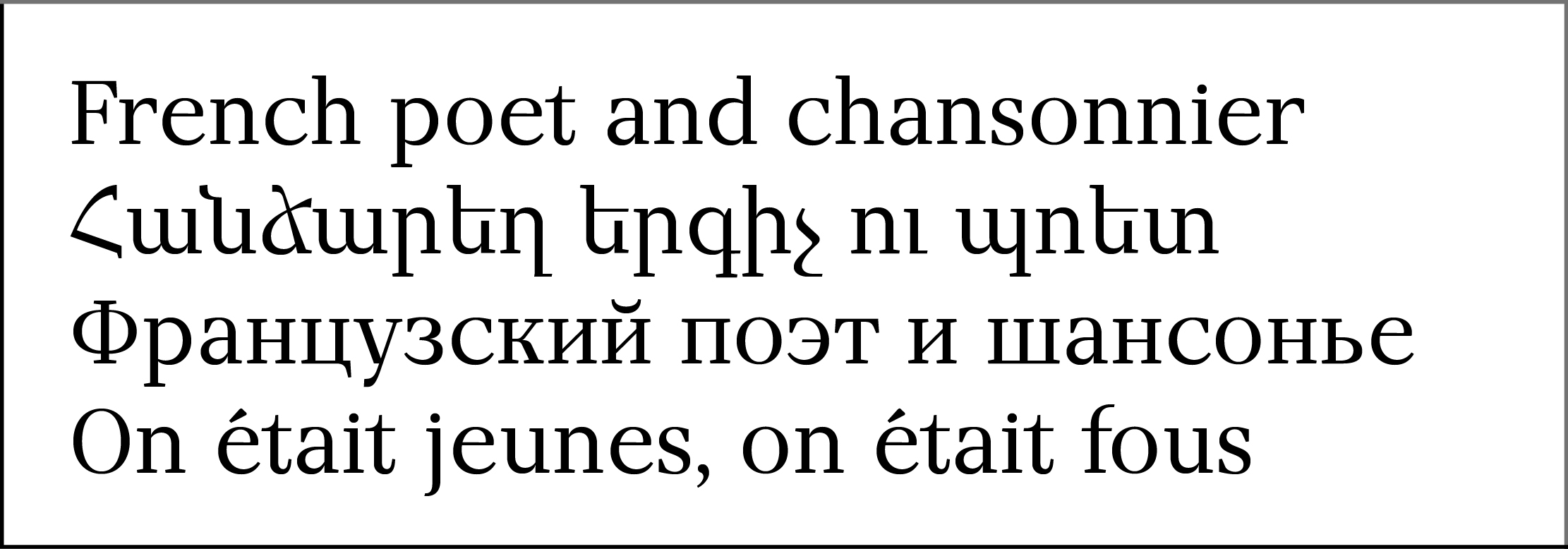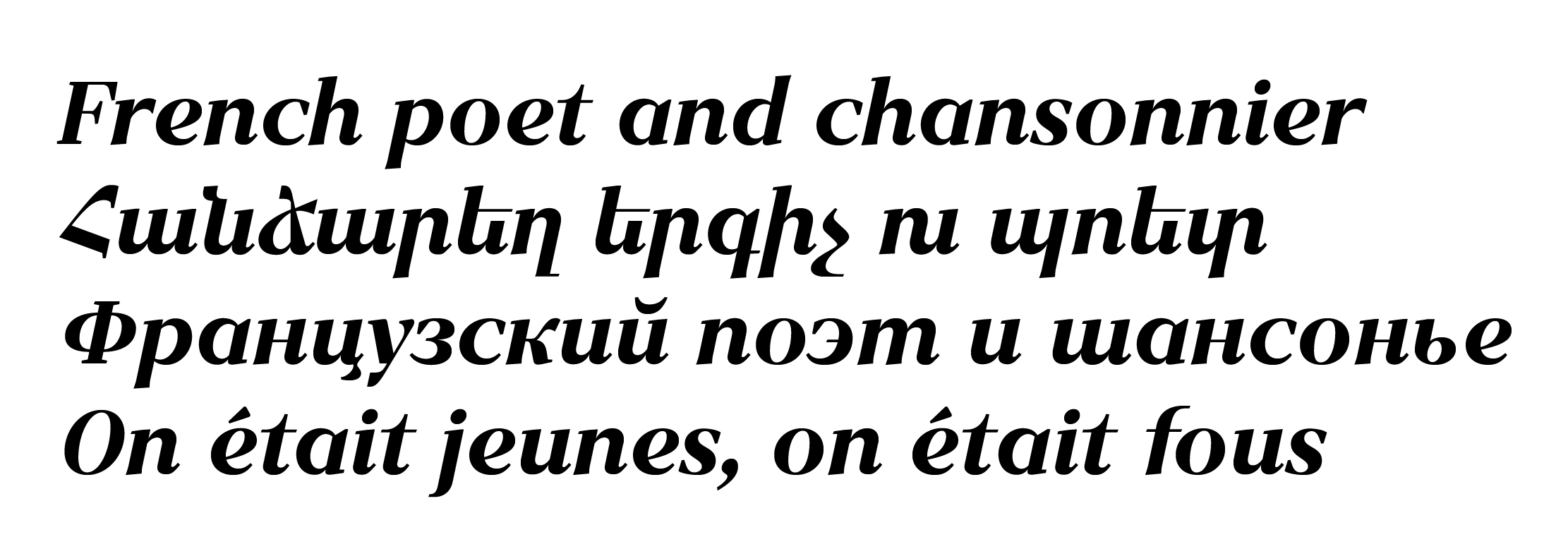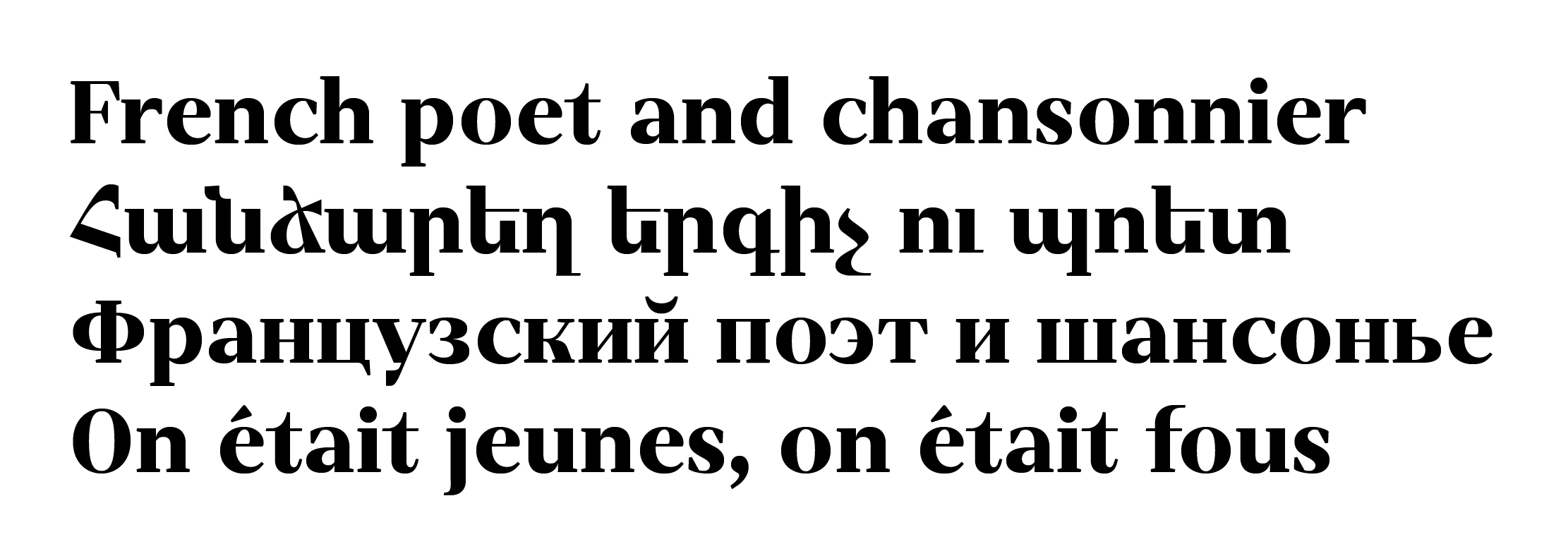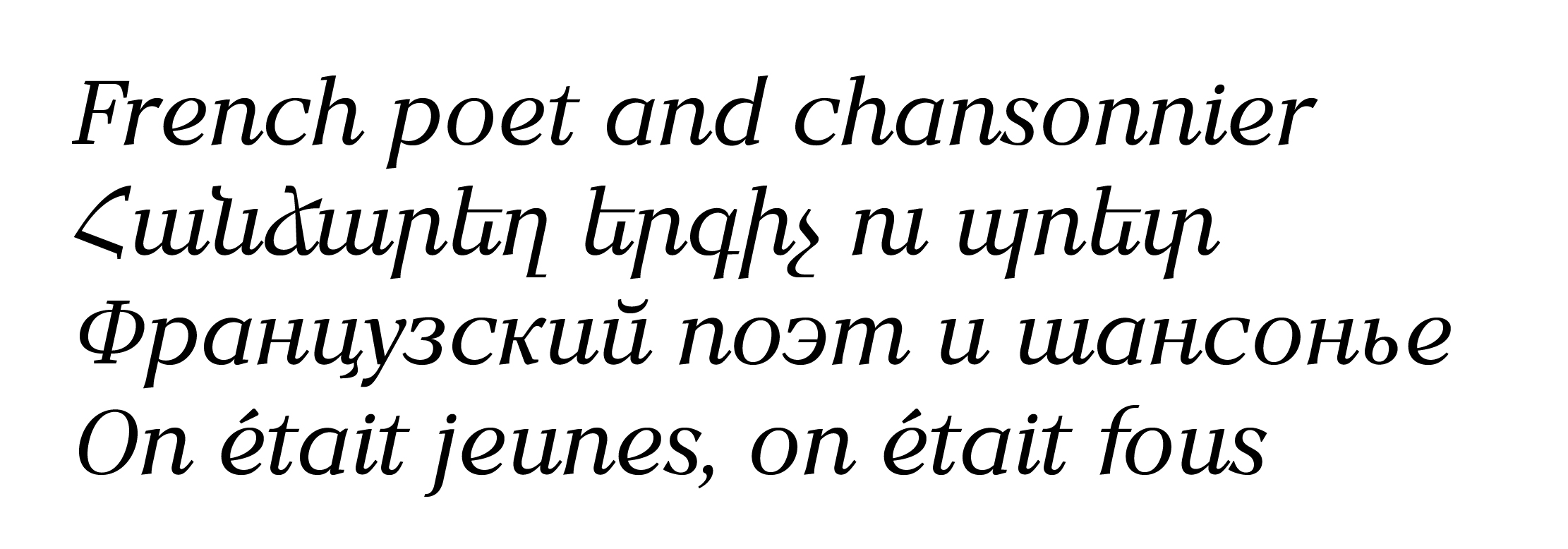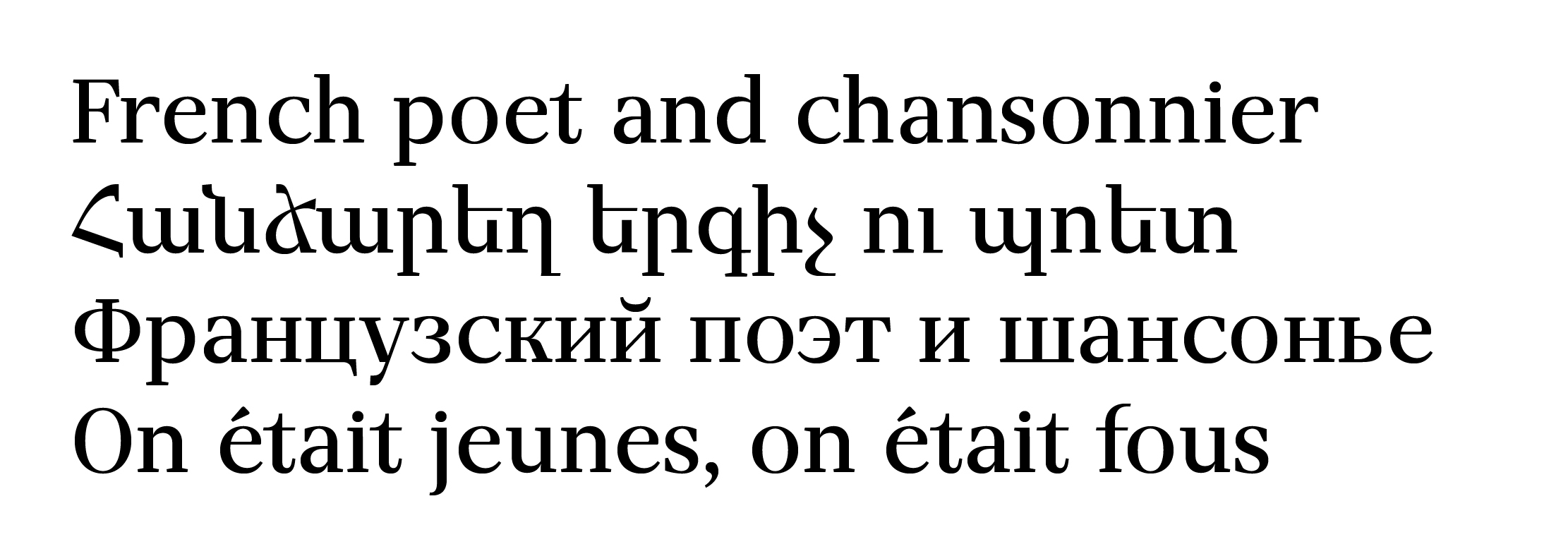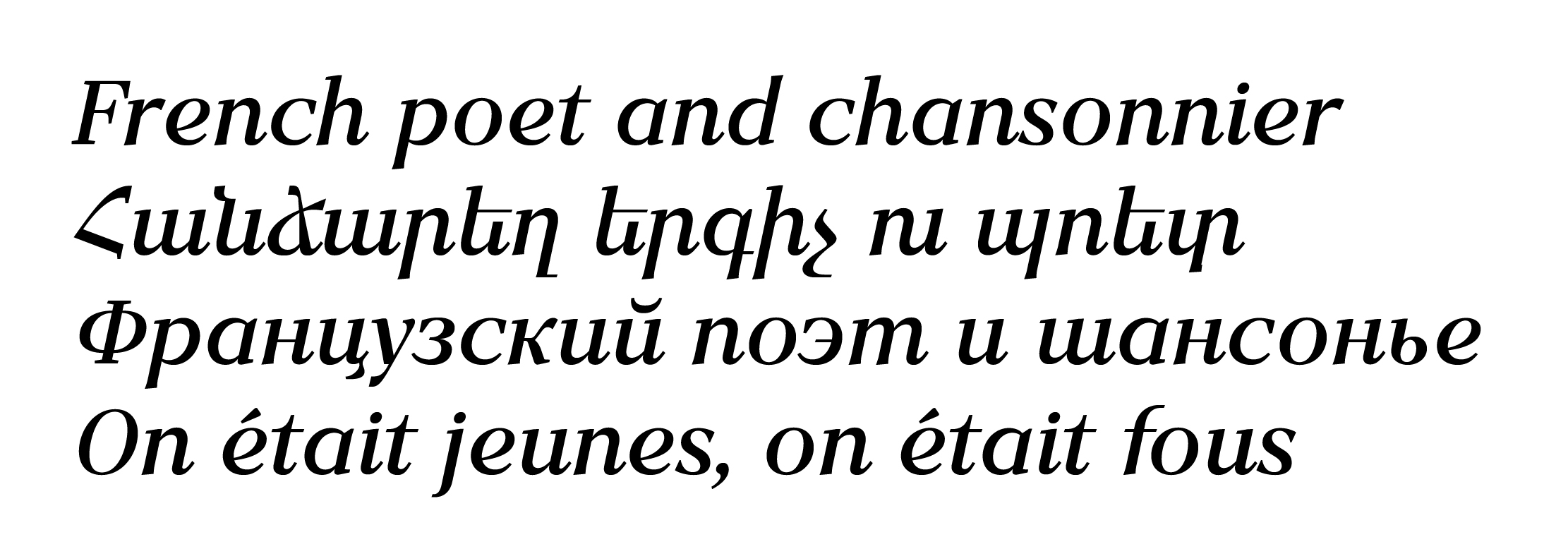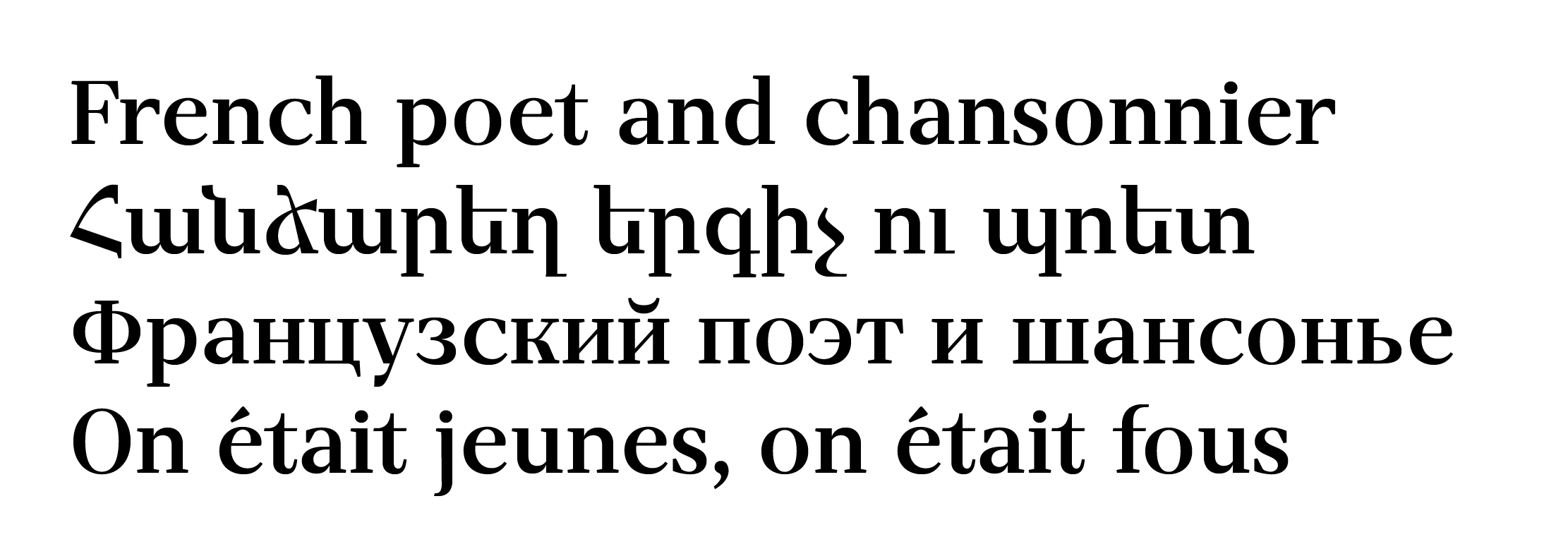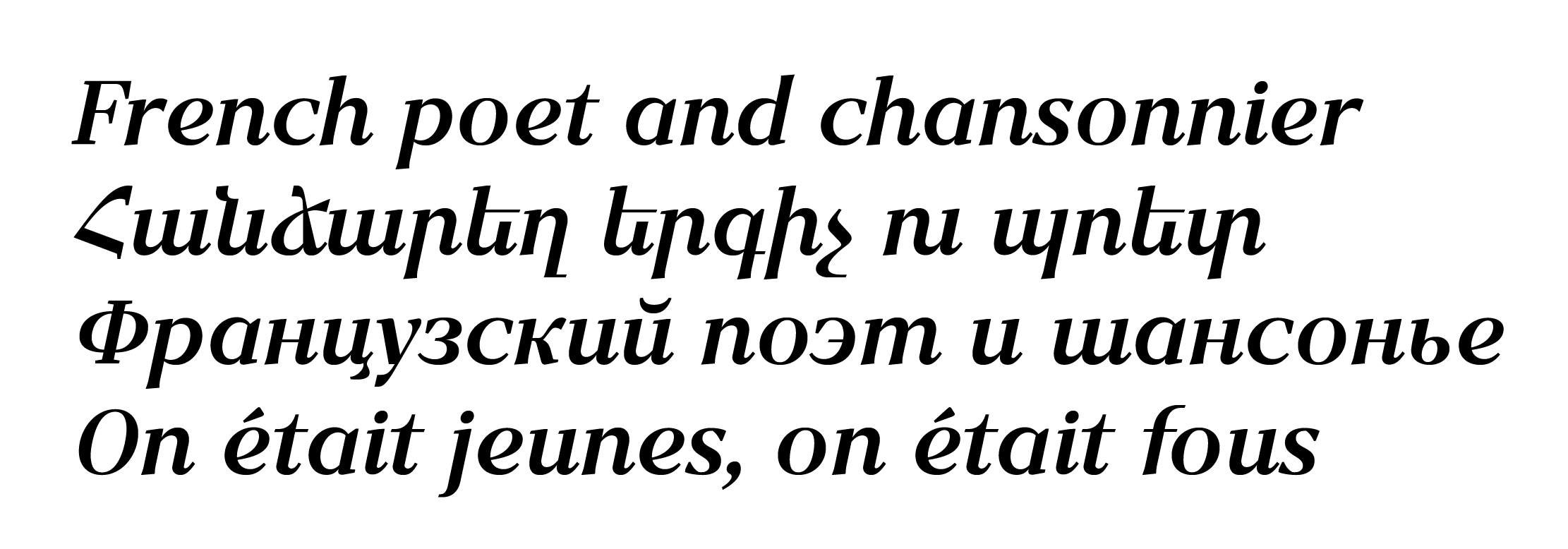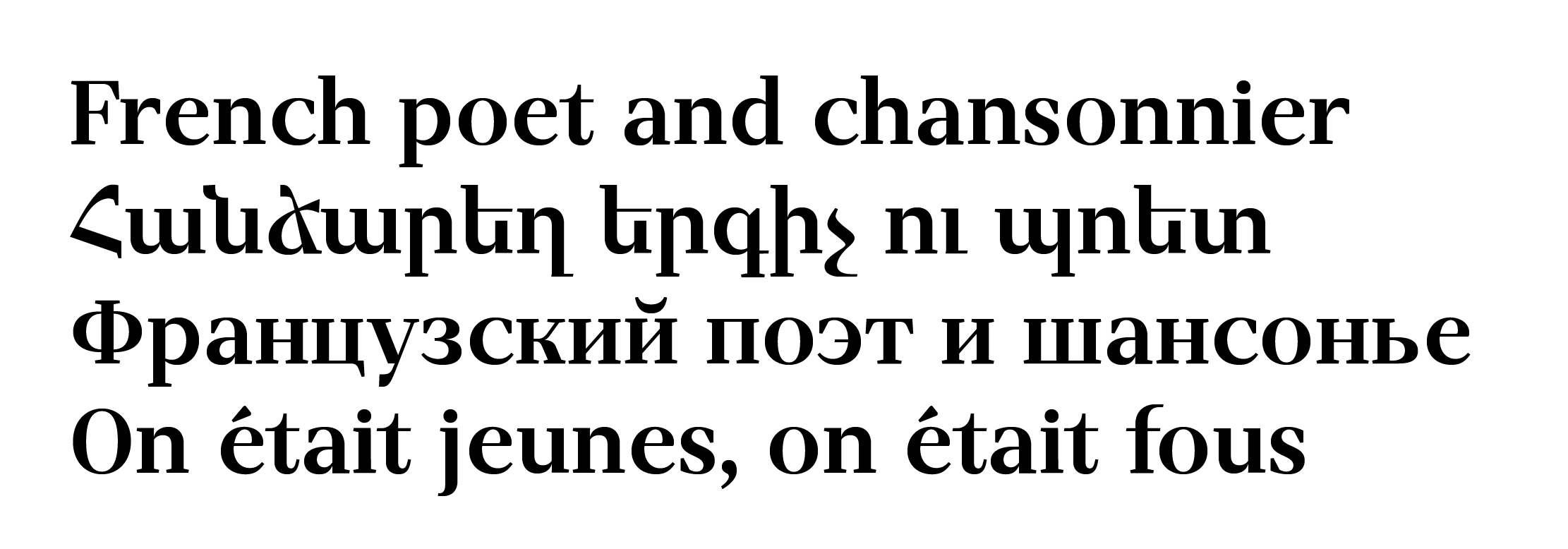
Edik Ghabuzyan, Serif typefaces
GHEA Aznavour
Design date: 2024
Styles: 12 (Regular, Regular Italic, Medium, Medium Italic, SemiBold, SemiBold Italic, DemiBold, DemiBold Italic, Bold, Bold Italic, ExtraBold, ExtraBold Italic).
The Serif font GHEA Aznavour has contrast and straight axes of ovals. Includes Armenian, Latin, Cyrillic alphabetic systems.
The font can be used as a text font and also title font, for books, albums, etc.